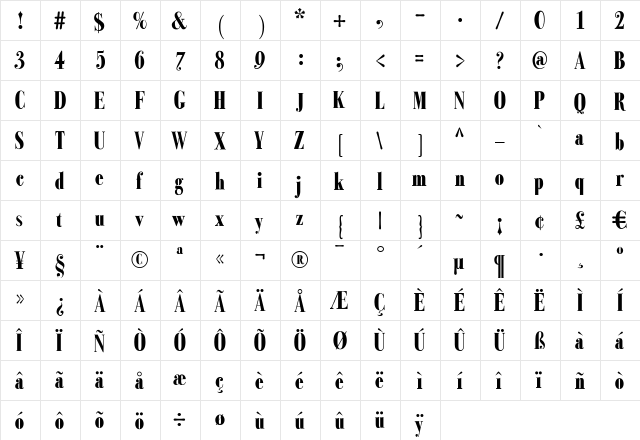
Bodoni Classic Condensed Plus Bold
Design Context for Bodoni Classic Condensed Plus Typeface
Bodoni Classic Condensed Plus wears its vintage influences proudly, with letterforms that recall mid-century signage, classic packaging, and nostalgia-driven design. The heavy weight commands attention and anchors typographic hierarchies.
Ideal for diner signage, record shop branding, 70s/80s-themed projects, and heritage product labels.
Font Pairing: Combine Bodoni Classic Condensed Plus with a simple slab or neutral sans — period-accurate companions reinforce the vintage feel without competing for attention.
Pro Tip: Lean into Bodoni Classic Condensed Plus's period character by pairing it with aged paper textures, muted colour palettes, and vintage illustration styles.